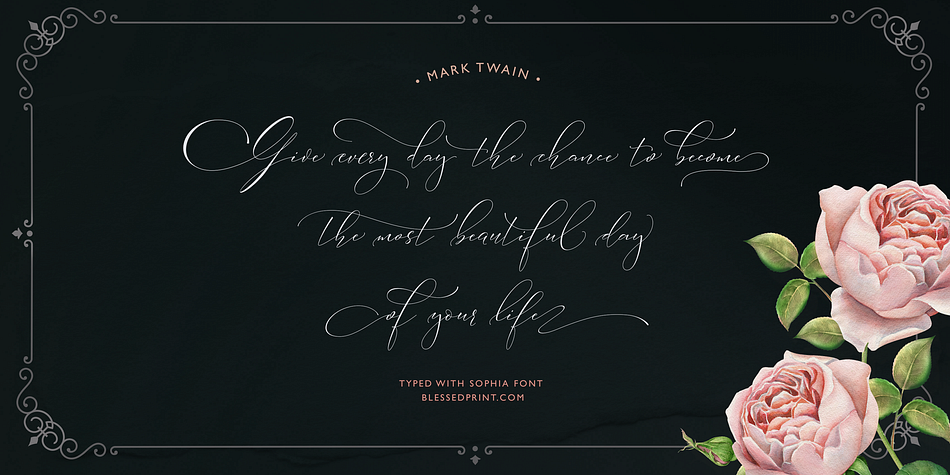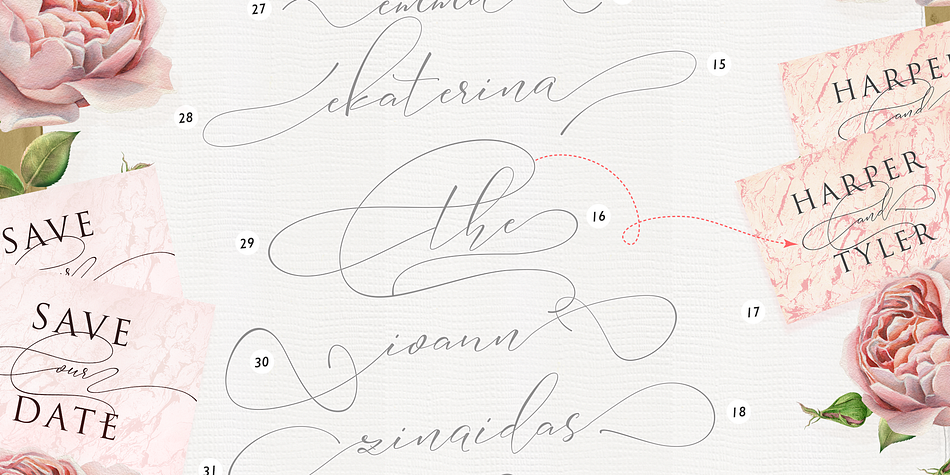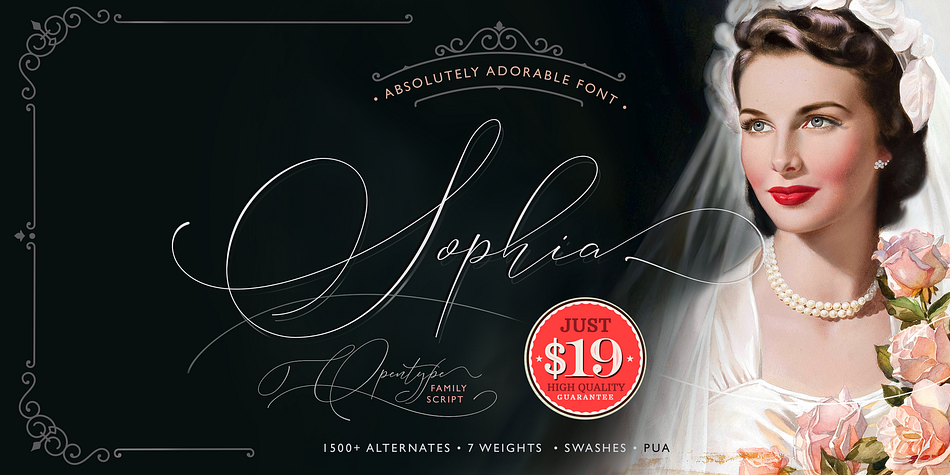
Designed by Dmitrii Mikitenko, Sophia is a modern calligraphy and script font family. This typeface has seven styles and was published by Blessed Prints.
Sophia script is a modern calligraphy typeface that imitates hand written calligraphy. It is full of alternates with wonderful swashes.
To access alternate glyphs and swashes just type the number after any letter: a1, a2, a3, etc…
If you open the Glyphs panel you will see more then 2500 glyphs. Using this font is so intuitively obvious that you will never feel its complexity. Just relax and allow the creativity happen. You don’t need to search for an appropriate alternative - just add a number after any letter you want to alternate or add a beautiful swash to and it will appear in a blink of an eye. The creative process is very fragile and therefore nothing should distract your attention. That’s why I’ve implemented a handy way of choosing alternatives. Have fun!
All capital letters are provided with six full sets of swashes. You have around 6 options: A, A1, A2, A3, A4, A5, A6, A7… As you can see, letter A has 8 variations. There are much more options for the lowercase: a, a1, a2 … a34. Just choose the one you like best!